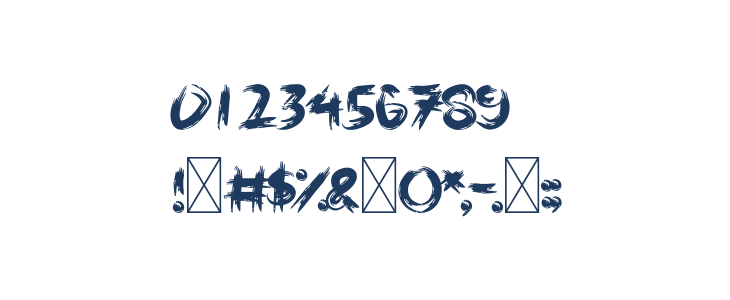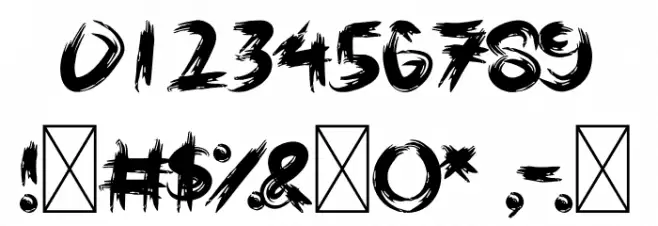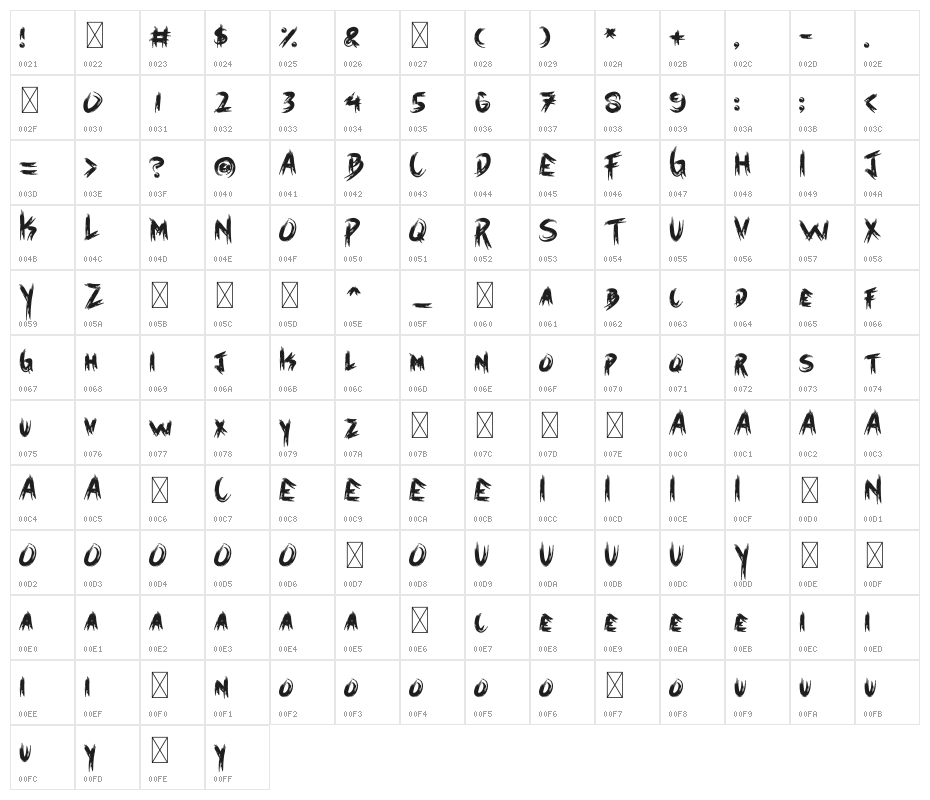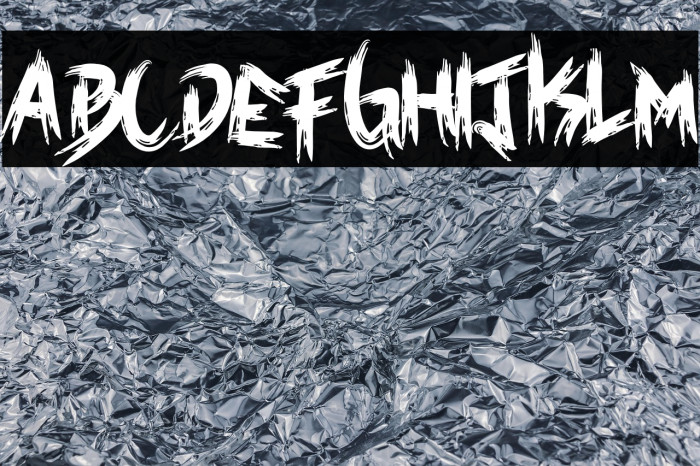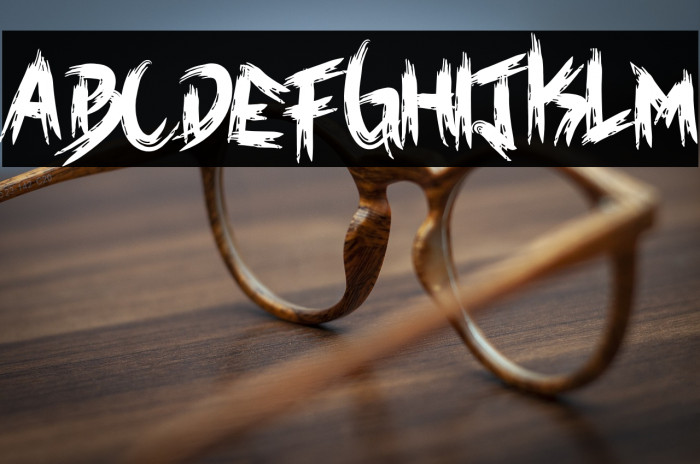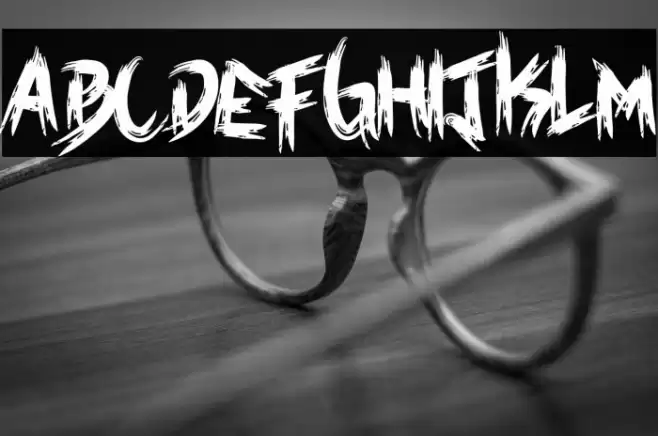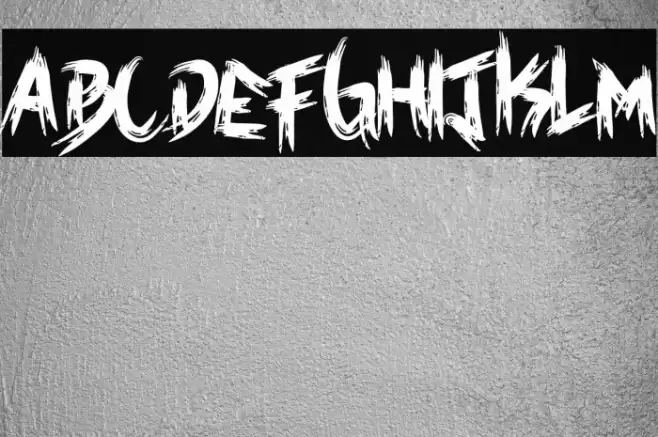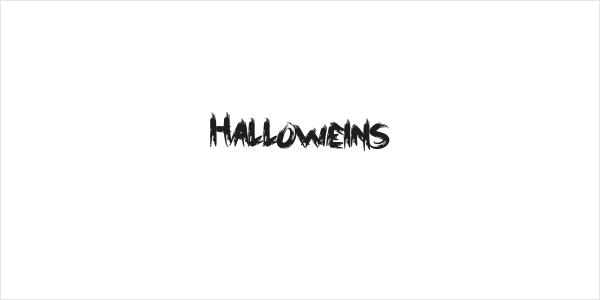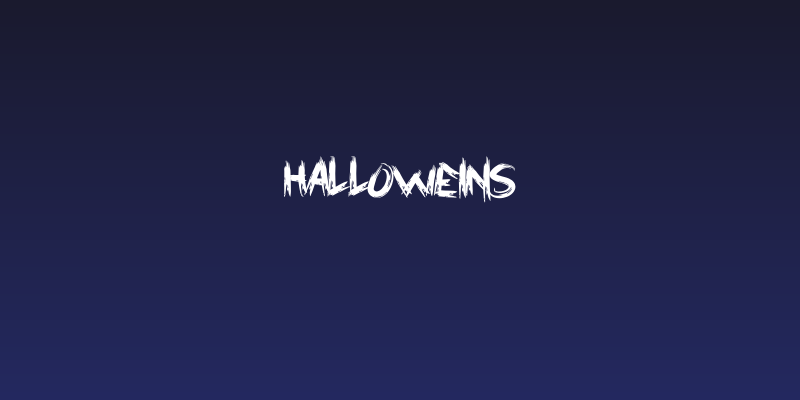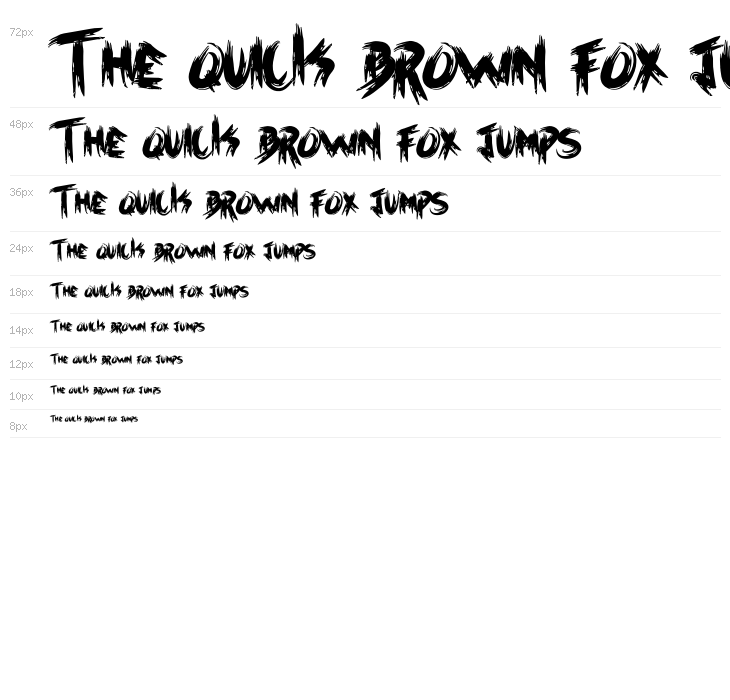
Halloweins Font
Halloweins Description
This font features a bold, jagged style that evokes a sense of horror and mystery, perfect for Halloween-themed projects. The characters are designed with irregular, sharp edges and a distressed appearance, giving them a hand-drawn, spooky look. The uppercase and lowercase letters maintain a consistent style, with numbers and special characters following the same eerie aesthetic. The font's unique design makes it ideal for creating eye-catching headlines and titles that demand attention.